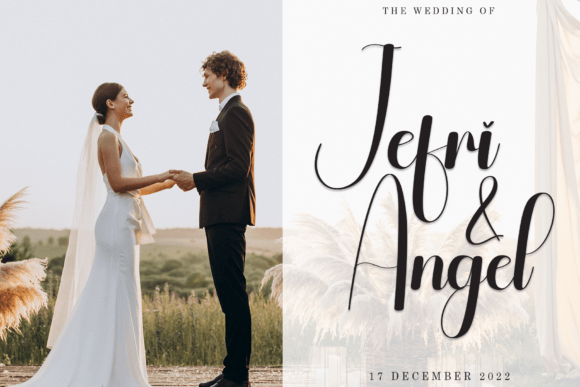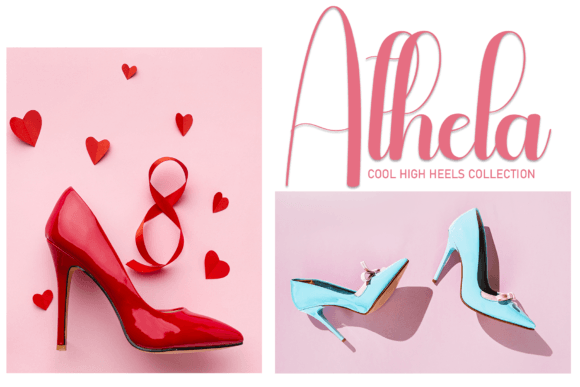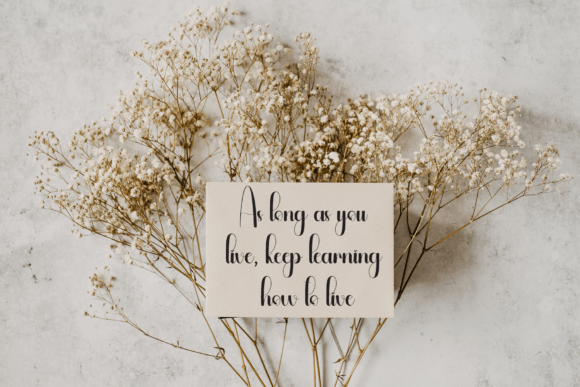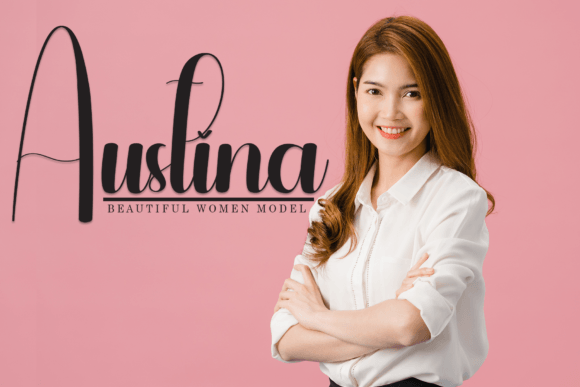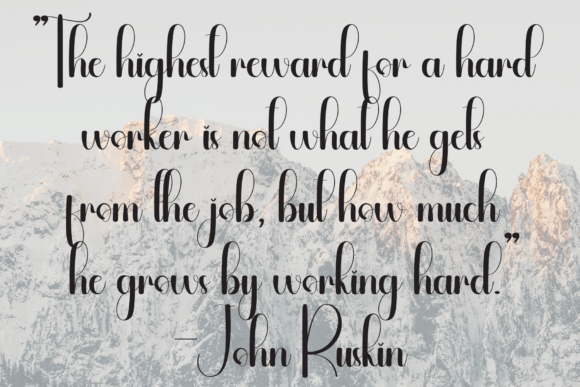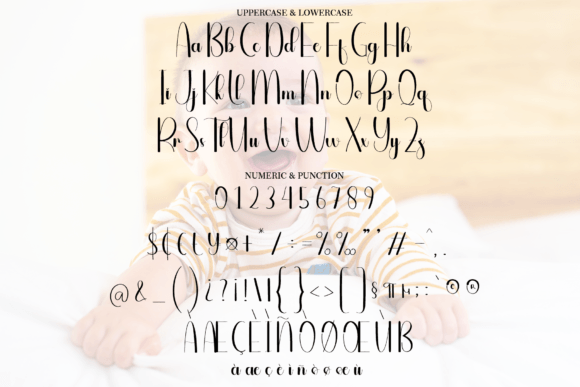
The Joy of Handwritten Typography: Discovering Baby Font
Have you ever stumbled upon the perfect font to bring a smile to your face? Maybe it was while browsing through a design blog, or perhaps it was during a late-night search for inspiration. For me, that moment came when I discovered Baby Font – a sweet and friendly handwritten font that screams ‘fun’ and ‘cute’.
Baby Font is more than just a pretty face; it’s a versatile and charming font that’s perfect for writing wedding invitations, cards, and any other design that needs a playful touch. Its friendly demeanor makes it an ideal choice for designers who want to add a personal and whimsical feel to their work.
As a designer, having access to a font like Baby Font can be a game-changer. Its unique charm and versatility make it a valuable asset for any creative project, and its ease of use makes it a joy to work with. Whether you’re a seasoned pro or a design newbie, Baby Font is sure to bring a smile to your face and inspire your next creative project.
Baby Font Key Features
- Font Family: A custom-designed font specifically for creating baby-related content, with a playful and cute appearance.
- Unique Characteristics: The font features rounded edges, gentle curves, and a soft, cursive style, making it perfect for creating a warm and welcoming atmosphere in baby-related content.
Baby Font Review
As a designer, I’ve had the chance to experiment with the Baby Font, and I’m excited to share my honest review with you. Here’s what I think:
- ✨ Unique and playful feel: Baby Font is designed to be cute and fun, making it perfect for children’s products, nursery decorations, or any project that needs a touch of whimsy.
- ✨ Versatility: The font comes in a range of weights and styles, allowing you to experiment with different looks and feels.
- ✨ Easy to read: Despite its playful nature, Baby Font is surprisingly easy to read, making it a great choice for body text or headings.
- ⚠️ Limited professional applications: While Baby Font is perfect for fun, informal projects, it may not be the best choice for professional or corporate designs where a more formal font is required.
- ⚠️ Limited character set: Baby Font’s character set is limited, which may cause issues if you need to use non-standard characters or languages.
I’d give Baby Font 3.5 out of 5 stars. It’s a fun, versatile font that’s perfect for certain projects, but its limitations may hold it back from being a go-to choice for more professional or complex designs.
Tips for Getting the Most Out of Baby Font
Use Baby Font for designs that require a playful, whimsical feel.
Pair Baby Font with bold, bright colors to create a striking visual effect.
Experiment with different font sizes and styles to add depth and interest to your design.
Baby Font is commonly used for:
Children’s book covers and illustrations.
Party invitations and decorations.
Advertising and marketing materials for family-friendly brands.
Alternatives to Baby Font
Great Vibes is a beautiful, elegant script font perfect for creating a whimsical and dreamy atmosphere. It’s ideal for use in branding, invitations, and any project that requires a touch of sophistication. Great Vibes is more ornate and decorative than Baby Font, making it a great choice for projects that need a bit more flair.